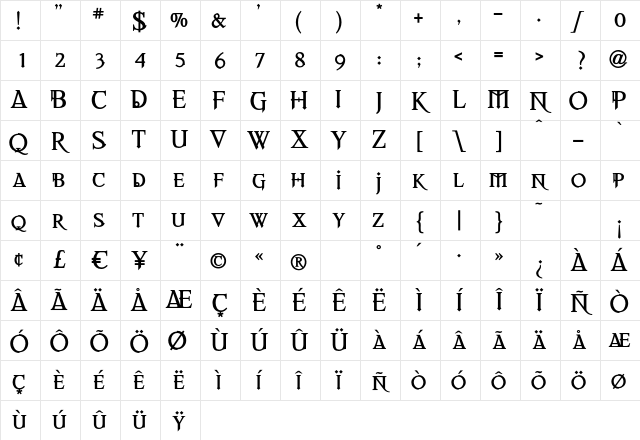
REQUIEM DIESIRAE11
Style: DIESIRAE11
REQUIEM Family
REQUIEM DIESIRAE11
Design Context for REQUIEM
REQUIEM is a composed and adaptable typeface that performs quietly and consistently across a wide range of design contexts.